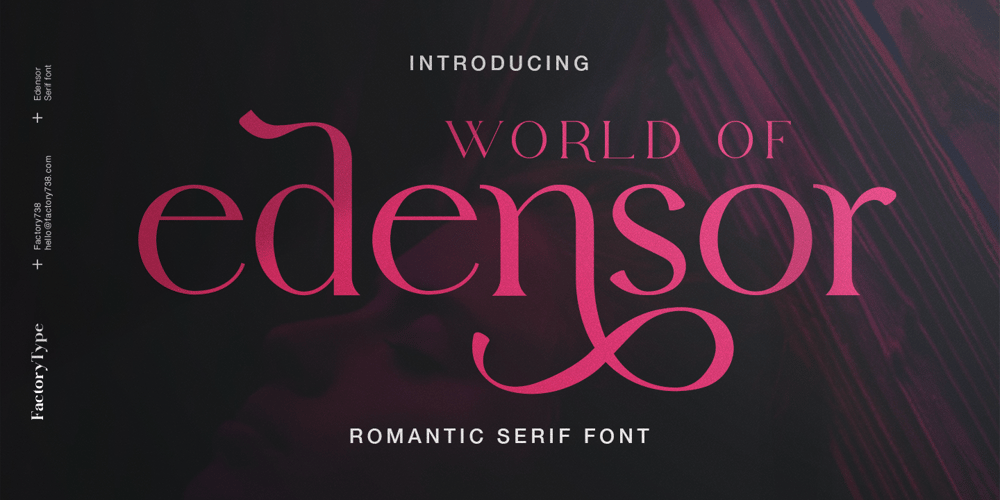
Edensor Font Family was designed by Wahyu Rahmawan and published by Factory738. Edensor contains 10 styles and family package options. Edensor is a playful yet romantic serif. It teases your eyes with its curves yet still able to maintain its classy composure. The variety of weights provide a range of choices that will help you find the best typographic colour. The available stylistic Ligature and Alternate offer a perfect font for anything your creativity takes you. 2 Styles (Regular and Italic) Basic Latin A-Z and a-z Numerals & Punctuation Stylistic Alternates & Ligatures Multilingual Support for ä ö ü Ä Ö Ü … Free updates and feature additions Thanks for looking, and I hope you enjoy it.